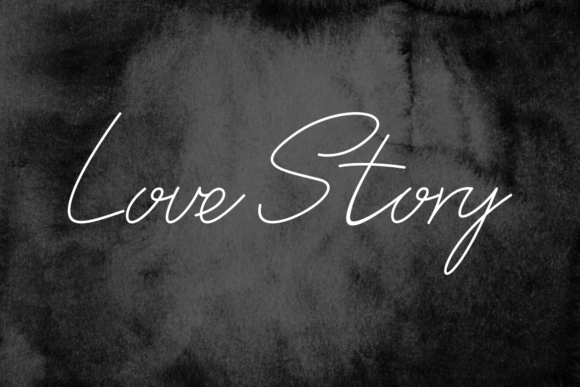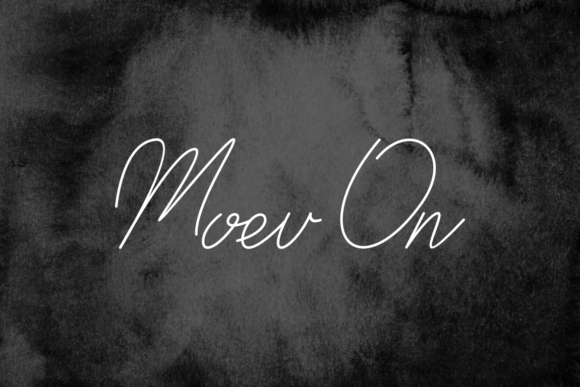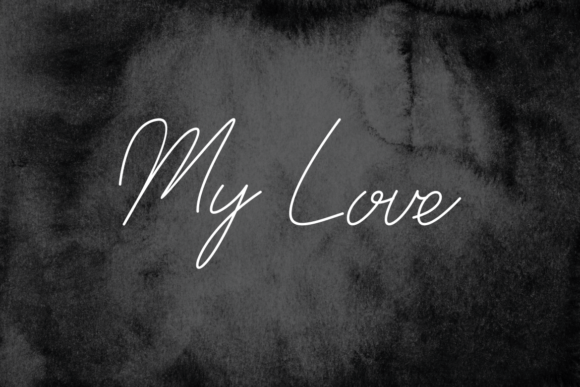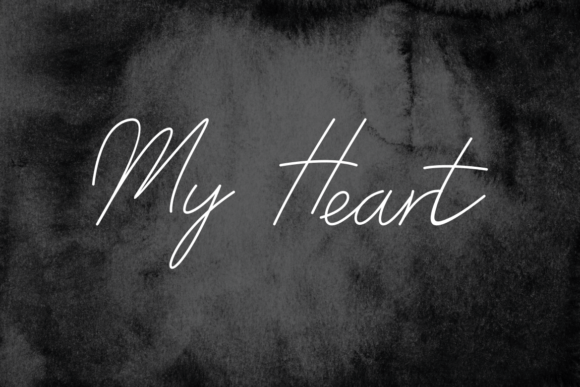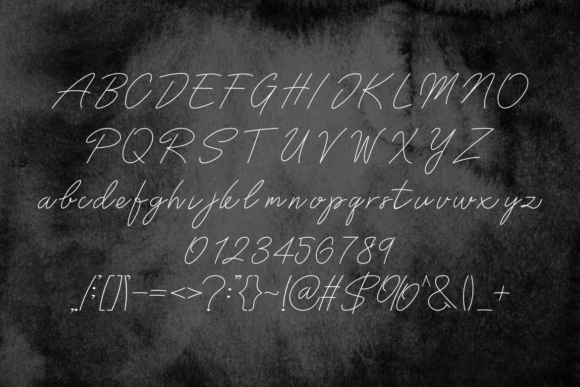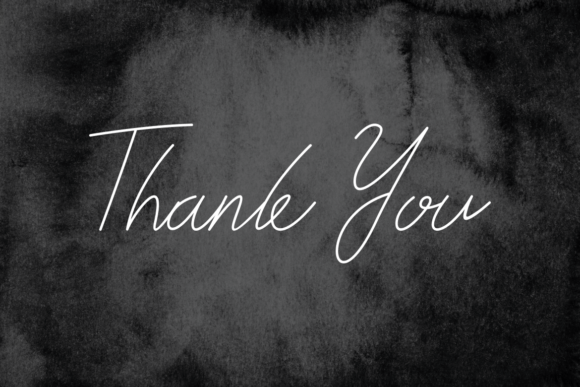
About Redachi Eline Font
Redachi Eline is a stylish and delicate script font. It has a clean, thin, and smooth vibe and it will be a hit for any design that you want to add it to.